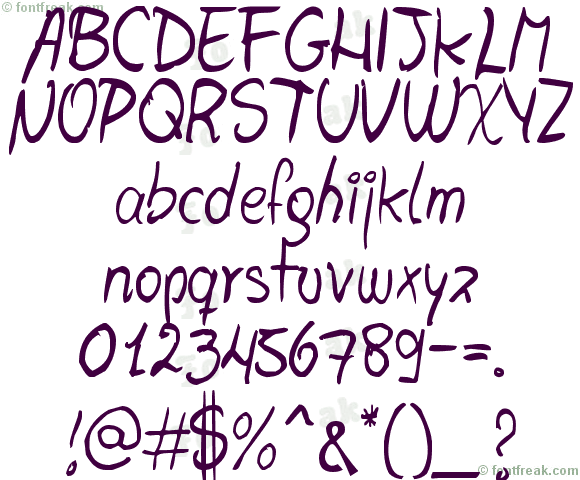
About Chave
Chave is a captivating display font designed by Juan Casco, perfect for those seeking unique typographic flair. This freeware font combines a modern aesthetic with playful characteristics, making it a versatile choice for various creative projects. As a display typeface, Chave stands out with its bold, distinctive forms that are sure to grab attention.
Visually, Chave features a medium stroke weight with subtle contrast, giving it a contemporary feel while remaining legible. The spacing is thoughtfully crafted, allowing for easy reading even at larger sizes. Decorative elements, such as rounded edges and playful curves, add an inviting touch to the font, making it ideal for projects requiring a friendly and approachable vibe.
Chave is particularly suited for a range of use cases, including wedding invitations, where its charm can convey elegance and joy. It also shines in movie posters, providing an eye-catching element that draws viewers in. Additionally, restaurant menus can benefit from Chave's playful nature, enticing diners with its inviting presence. Small business owners can utilize this font for branding materials, ensuring their messaging is both memorable and visually appealing. Content creators will find Chave useful for social media graphics, where its unique style can help their posts stand out in crowded feeds.
The target audience for Chave includes graphic designers, small business owners, and content creators looking to enhance their projects with an engaging typeface. What sets Chave apart is its ability to blend modern design with a whimsical touch, making it a standout choice for anyone seeking to add personality to their work. For those interested, Chave font free download is available, allowing you to incorporate this delightful typeface into your design toolkit effortlessly.